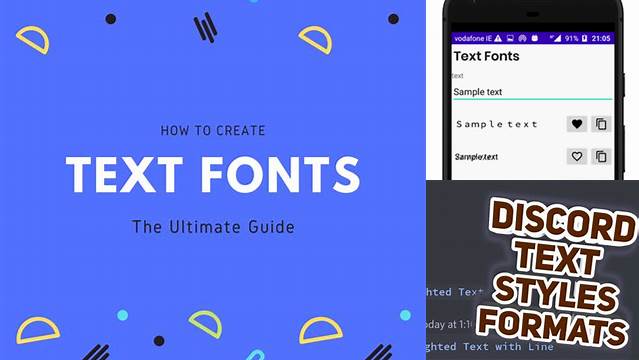
Discord Fonts: Your Ultimate Guide To Text Styling
Hey guys! Ready to jazz up your Discord chats and make your messages pop? We're diving deep into the world of Discord fonts and all the cool commands you can use to style your text. Forget boring, plain text – we're talking bold, italic, underlined, and even those fancy fonts that make your messages stand out from the crowd. Whether you're a seasoned Discord pro or just starting out, this guide has something for everyone. We'll cover everything from the basics to some seriously cool tricks that will have your friends asking, "How'd you do that?!" Get ready to transform your text game and become a Discord font master!
H2: Basic Discord Text Formatting Commands
Alright, let's start with the fundamentals, shall we? The bread and butter of Discord fonts – the basic formatting commands that everyone should know. These are super easy to remember and use, and they'll instantly make your messages more readable and engaging. First up, we have bold text. To make text bold in Discord, you simply enclose your text with two asterisks (
**your text here**
). For example, typing Hello, world! will render as Hello, world!. Simple, right? Next, we've got italic text. This is just as easy. Use a single asterisk or underscore (
*your text here*
or
_your text here_
). So, How are you doing today? will appear as How are you doing today?. You can use either an asterisk or an underscore; it's all about your preference! Now, for underlined text, use two underscores (
__your text here__
). So, This is underlined text will become This is underlined text. Finally, we have strikethrough text. This is used to indicate text that is no longer relevant or has been edited. You can achieve this by using two tildes (
~~your text here~~
). For example, This text is crossed out will appear as This text is crossed out. These basic commands are essential for any Discord user who wants to add a bit of flair to their messages. Get comfortable with these, and you'll be well on your way to mastering Discord fonts! They're perfect for emphasizing important information, making your text easier to scan, and adding a little personality to your conversations. Try experimenting with them in different combinations! You can combine bold and italic, for example: This text is bold and italic. Just remember to close the tags in the correct order, or things might get a bit wonky. Practice makes perfect, so go ahead and start playing around with these basic commands and see what you can create.
H3: Combining Basic Text Formatting
Let's get a little fancy, shall we? Now that you're comfortable with the basic Discord fonts commands, it's time to combine them to create some truly eye-catching text! Combining formatting options lets you emphasize text in multiple ways, highlighting different aspects of your message. For instance, you can use bold and italic text to really draw attention to a specific phrase or word. To do this, simply use the bold and italic commands together (This text is both bold and italic). Remember, the order in which you close the tags matters! So, the last tag you open should be the first one you close. Similarly, you can combine bold and underlined text (This is bold and underlined). And you can combine italic and underlined text (This is italic and underlined) You can even try combining all three—bold, italic, and underlined (This is bold, italic, and underlined)—but use this sparingly, as too much formatting can make your message look cluttered and difficult to read. The key here is to use combinations of formatting to emphasize different aspects of your text effectively. Think about what you want to highlight in your message and then select the combination of formatting that best suits your purpose. For instance, if you're providing a list of instructions, you might want to use bold to highlight the steps and italic to indicate important notes or warnings. Or maybe you want to use underlining to emphasize key terms in your message. Experiment with different combinations of formatting to find out what works best for you and your specific needs. Remember, the goal is to make your messages clear, engaging, and easy to understand. And don’t be afraid to have some fun with it! Combining formatting commands can be a great way to add a little personality and flair to your Discord conversations. Once you start combining these commands, you'll realize just how much control you have over your text styling game in Discord. Go ahead and start experimenting—you’ll be surprised at what you can achieve!
H2: Advanced Discord Font Tricks and Techniques
Alright, buckle up, because we're about to level up your Discord fonts game with some advanced tricks and techniques! We're moving beyond the basics and into some seriously cool stuff that will make your messages truly stand out. First up is spoiler tags! To hide text, you'll need to use spoiler tags, which are created by enclosing your text with double pipes: (
||your spoiler text||
). So, ||Surprise!|| will appear as ||Surprise!|| – the text is hidden until the recipient clicks on it. This is perfect for revealing plot twists, keeping secrets, or just having a bit of fun. Next, we have code blocks. Code blocks are used to format text as code, preserving the spacing and special characters. To create a single-line code block, use backticks (
`your code here`
). For example, `console.log(